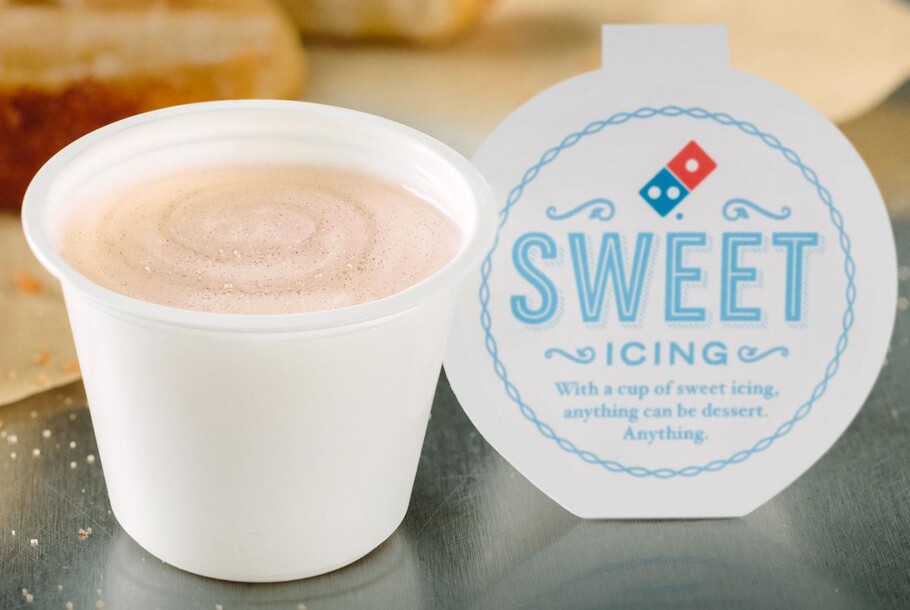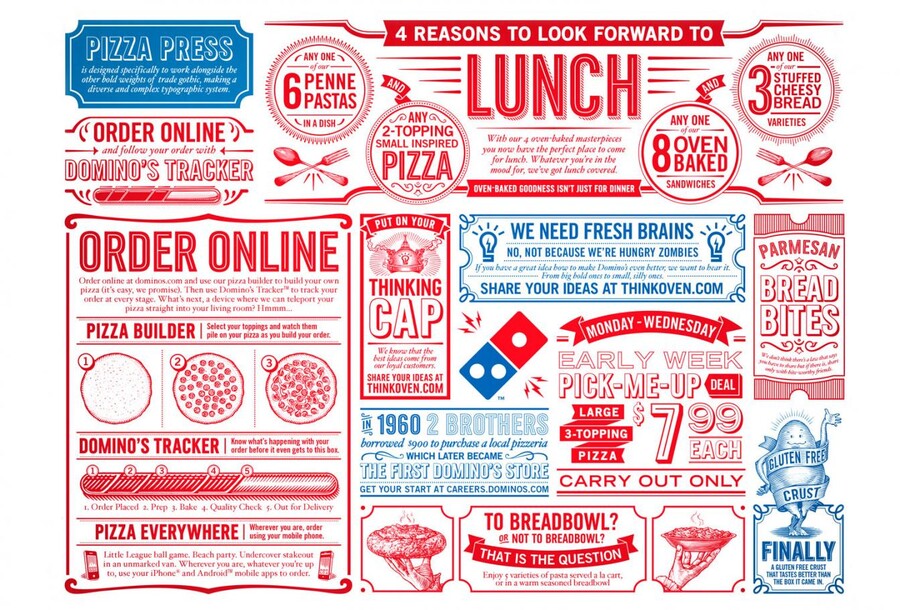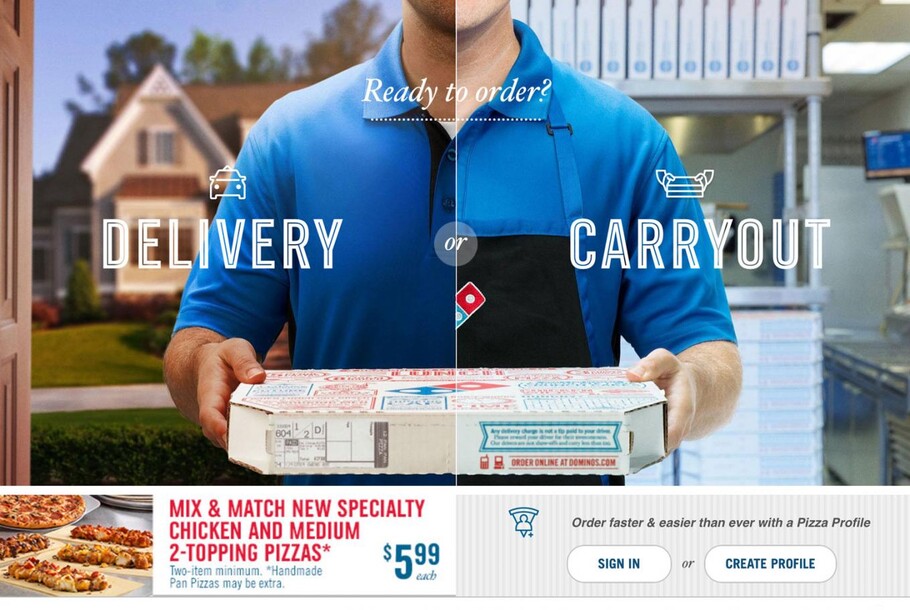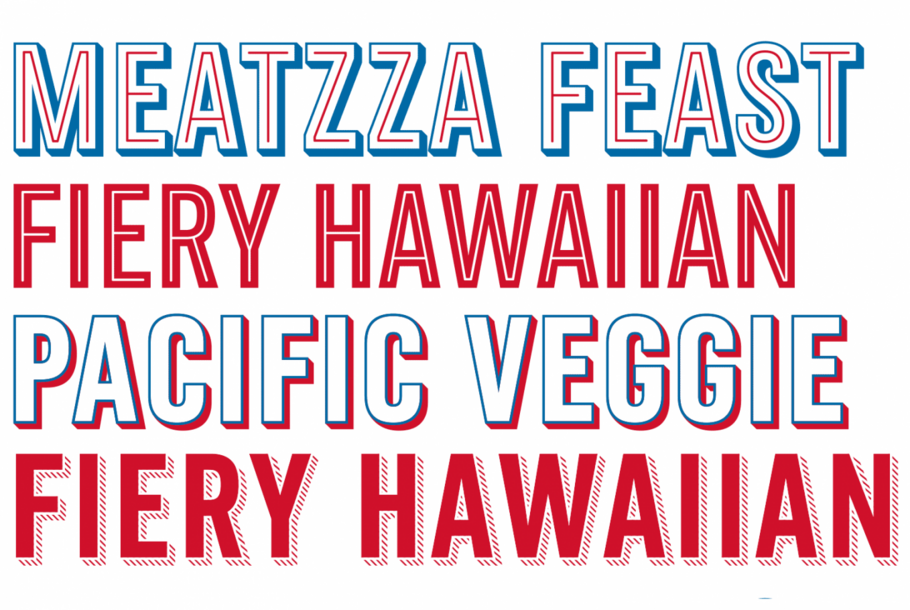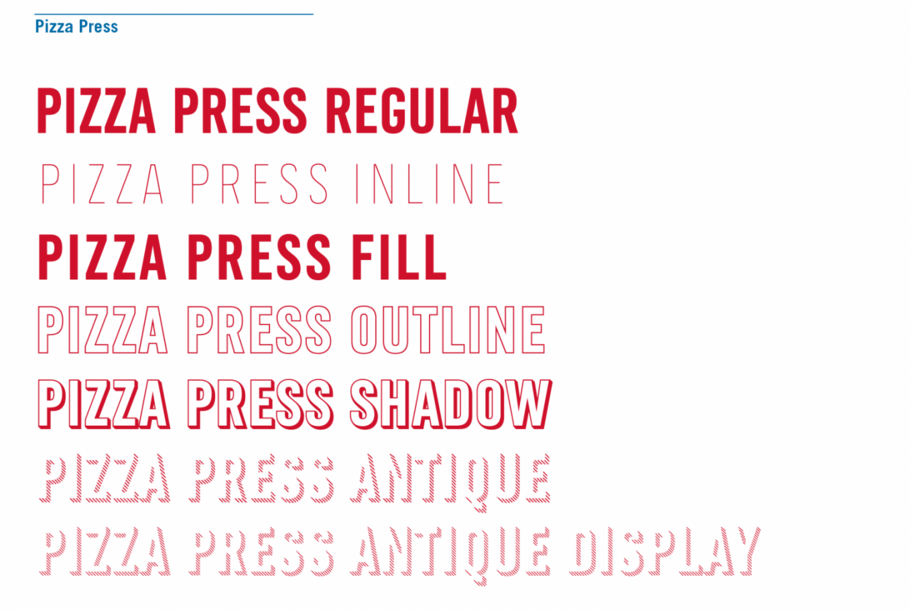
A stackable typeface for Domino’s Pizza.
Monotype designer Terrance Weinzierl delivered a taste of modern Americana to Domino’s, with his modular, multi-weight Pizza Press typeface.
Created in response to a Crispin Porter + Bogusky brief for Domino’s, Weinzierl was tasked with creating a typeface that would introduce a ‘contemporary’ feel, while working alongside the Trade Gothic® design already in use. By producing a series of modular fonts that could be stacked in multiple ways, Weinzierl’s design eases the burden of branded typography, and allows designers and laymen to channel their inner typographer.
The Pizza Press typeface was based on 19th century models, in reference to the existing Trade Gothic® typeface. Other historic references helped inform the design, and Weinzierl studied finely detailed metal type specimens to see how the tiny, ray-like stripes had been created in the past. The Gill Sans® Shadow fonts were also a point of technical reference and Weinzierl explains, “a shadow design like that requires some unusual optical adjustments.” This meant that the angle and spacing of the stripes on every glyph of the shadow weights was adjusted by hand. Other detailed considerations include removing the spur from the G, to make sure the letterform could hold the Inline weight.
The design also includes built-in ink traps, with the Outline weight overlapping the Shadow weight by a hair, to ensure the background color shows through when rendered on screen. Weinzierl also made optical variants of the Antique striped weights – a regular and a display – to function across a range of sizes and printing environments.
“ What was a very time and labor intensive process — manually copying and pasting outlined vector art to layout — into a task as simple as typing on a keyboard, literally!” ”
It was this level of understanding and attention to detail that drew Crispin Porter + Bogusky to a collaboration with Monotype, and Jake Harvey, digital asset manager at CP+B, says, “we felt confident Monotype’s long history of work in type design provided a level of understanding of the ‘subtleties’ so the final product preserved the character and spirit of the original design.” The typeface also offers simplification, changing, in the words of Harvey, “what was a very time and labor intensive process – manually copying and pasting outlined vector art to layout – into a task as simple as typing on a keyboard, literally!”
The typeface has already been used in packaging, signage and TV spots, and will continue to be deployed in any environment where Domino’s branding is being used. Pizza Press was also awarded the TDC Certificate of Excellence in typeface design, in 2014.